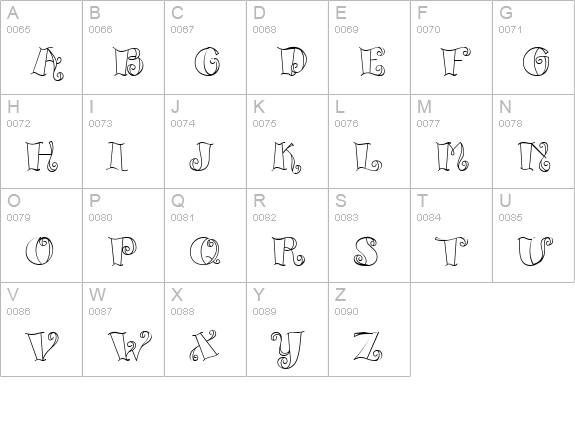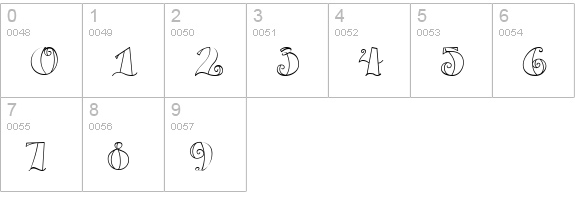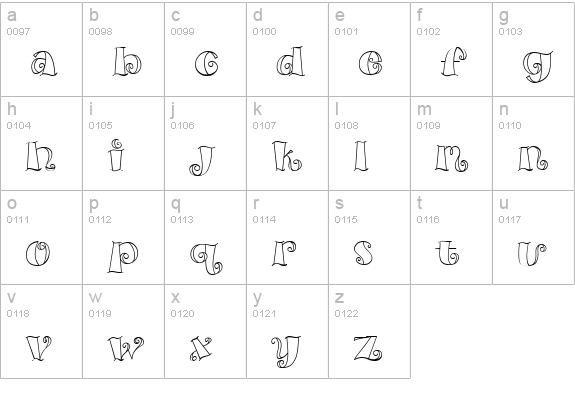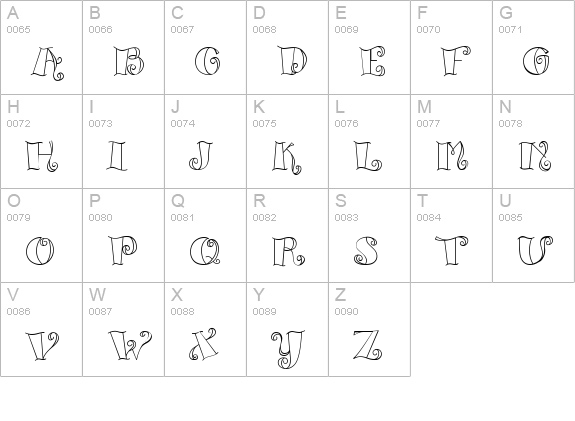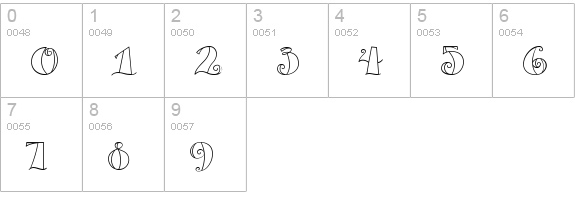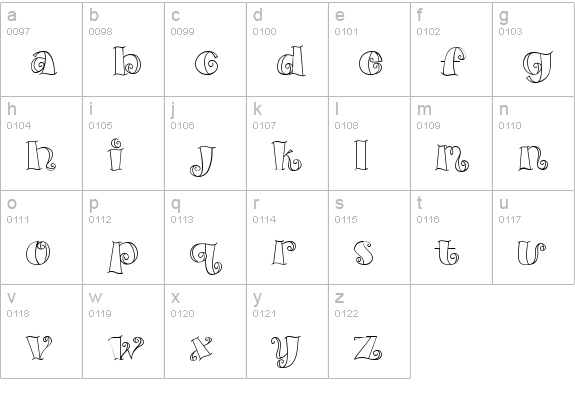
CK Voluptuous Font Details
CK Voluptuous is a stunning and elegant font that exudes a sense of luxury and sophistication. With its voluptuous curves and smooth lines, this typeface is perfect for adding a touch of glamour to your designs. Whether you're working on a high-end fashion magazine, a luxurious branding project, or an upscale wedding invitation, CK Voluptuous is sure to make a statement. The best part? CK Voluptuous is available for free download at FontsMarket.com, making it easily accessible to designers and creatives looking to elevate their projects with a touch of elegance. Don't miss out on the opportunity to add this exquisite font to your collection and take your designs to the next level with CK Voluptuous.